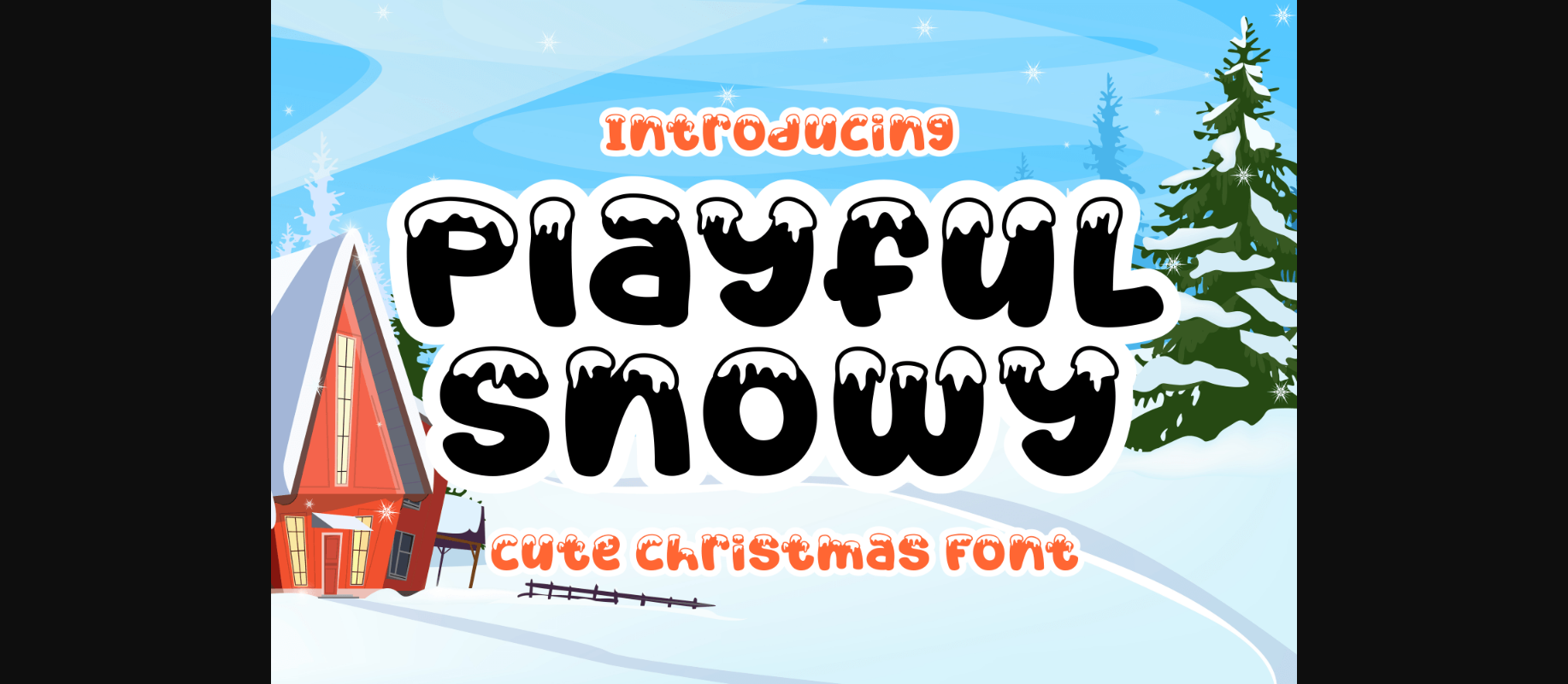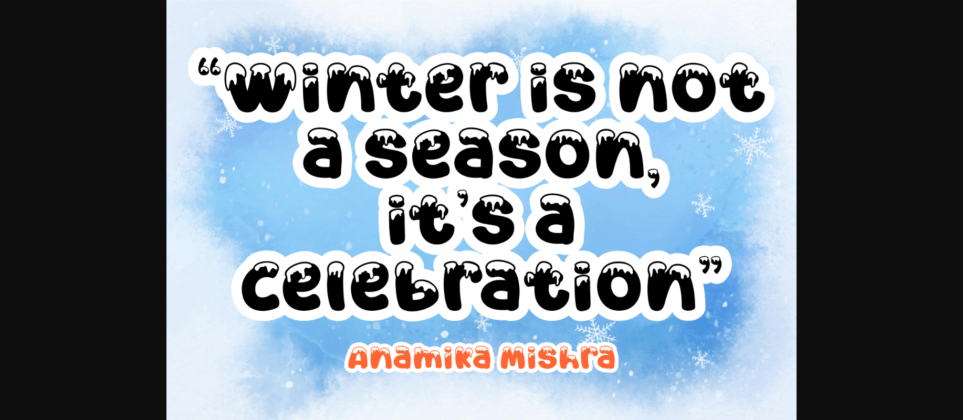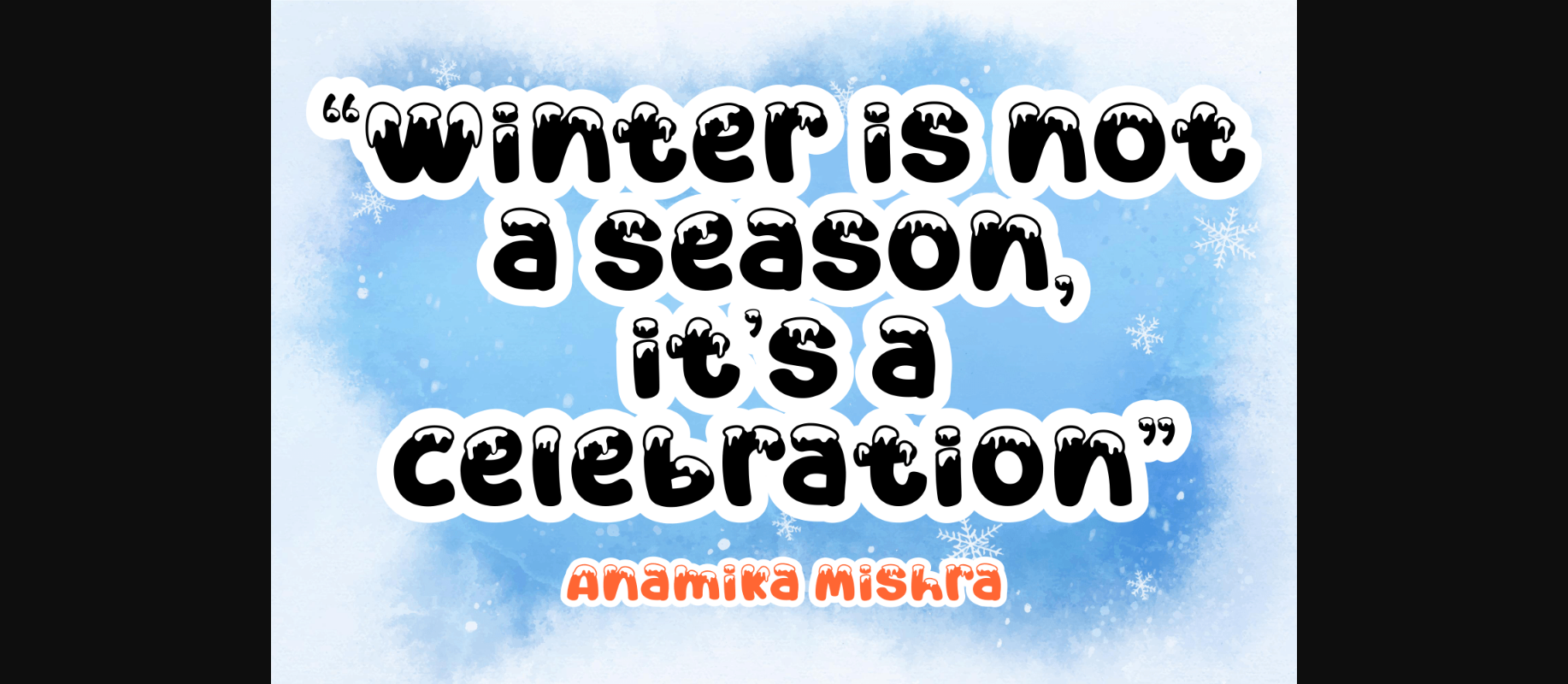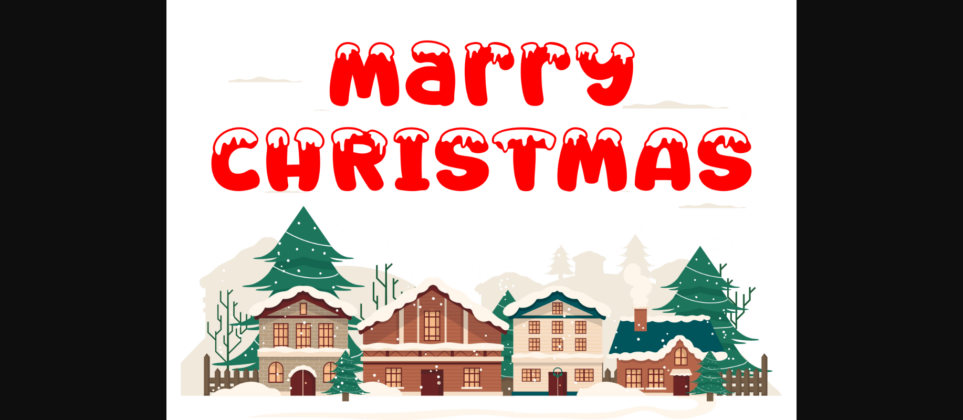
About Playful Snowy Font
Playful Snowy is an adorable winter decorative font. Whether you’re using it for Christmas crafts, digital design, presentations, or making greeting cards, this font has the potential to become your favorite go-to font, no matter the occasion!